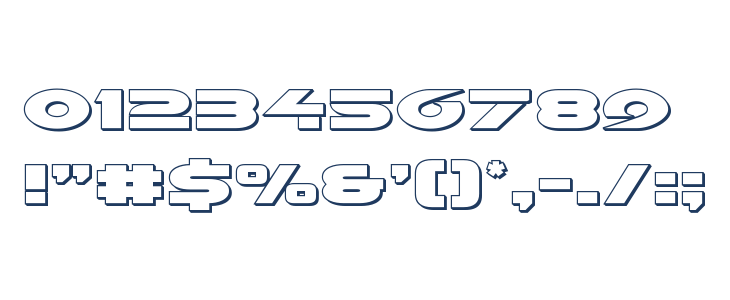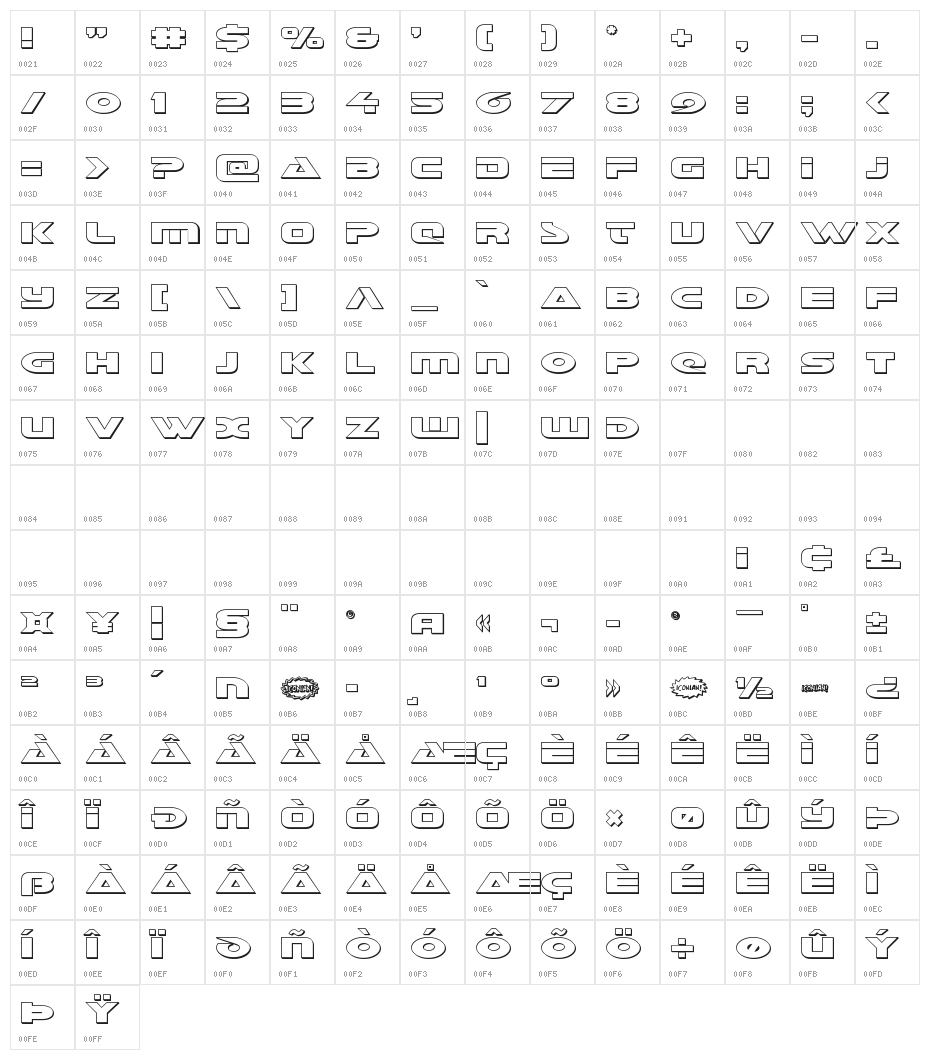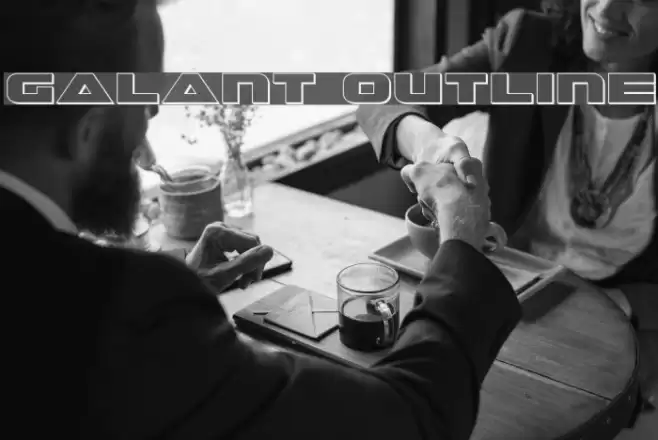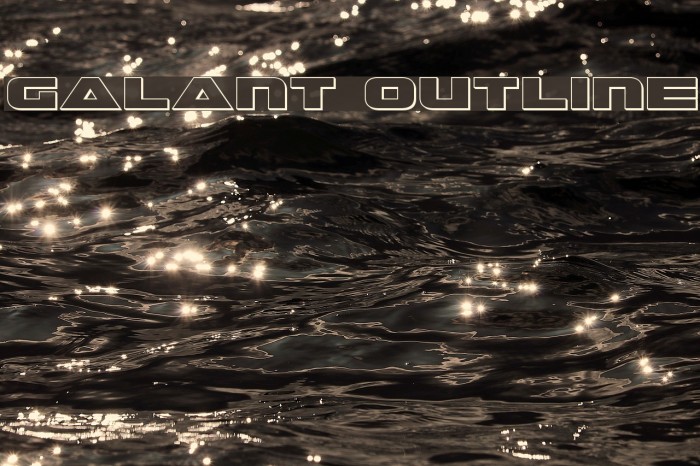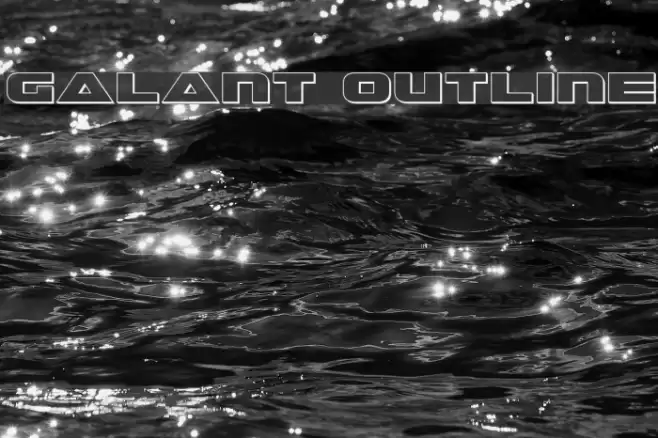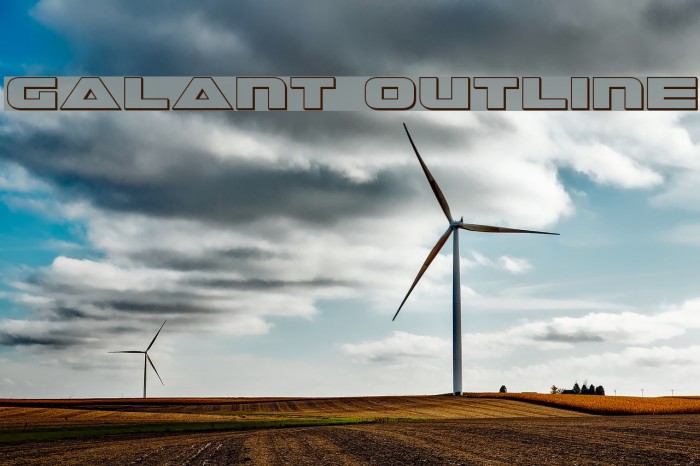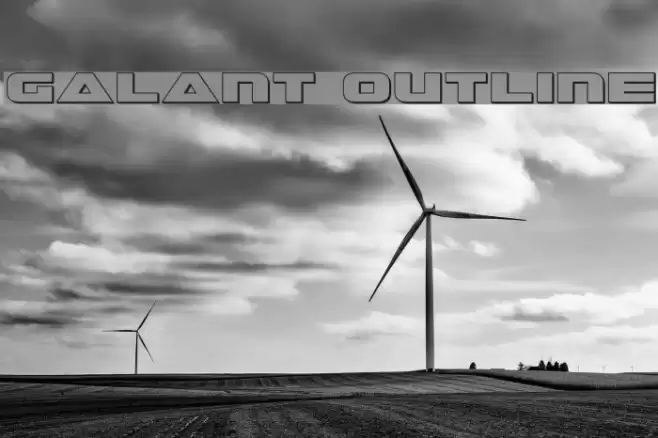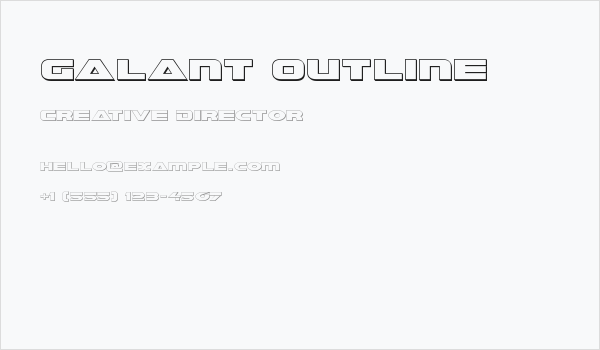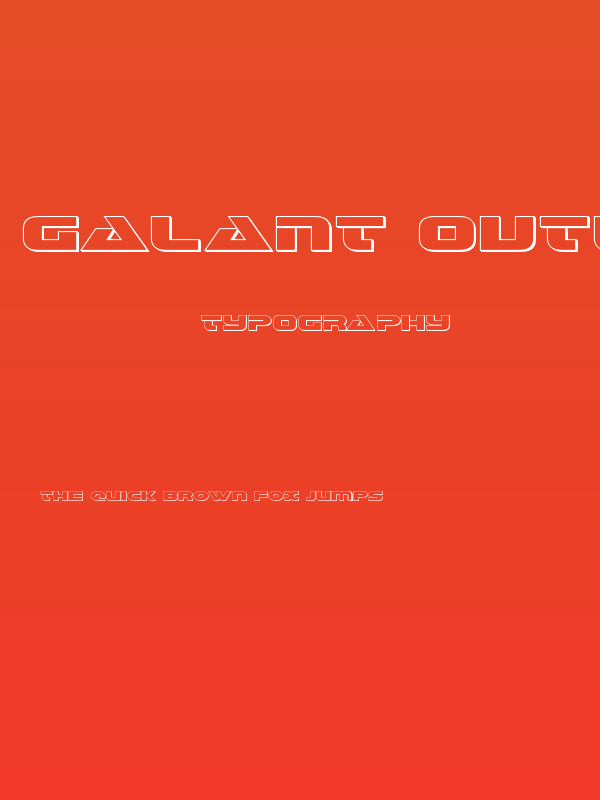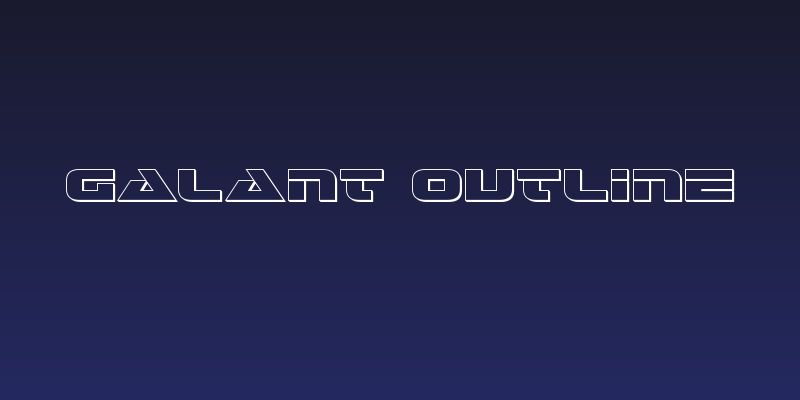
Galant Outline Font
Galant Outline Description
This font features a bold, geometric outline style that emphasizes modernity and clarity. The characters are constructed with clean, sharp lines and a consistent stroke width, creating a uniform and structured appearance. The uppercase letters are particularly striking, with angular forms and a futuristic aesthetic. The lowercase letters maintain the same geometric style, offering a cohesive look across all text. Numbers and special characters are designed to match the bold and structured theme, ensuring versatility in various design contexts. The font's outline nature gives it a unique, eye-catching quality that stands out in any application.